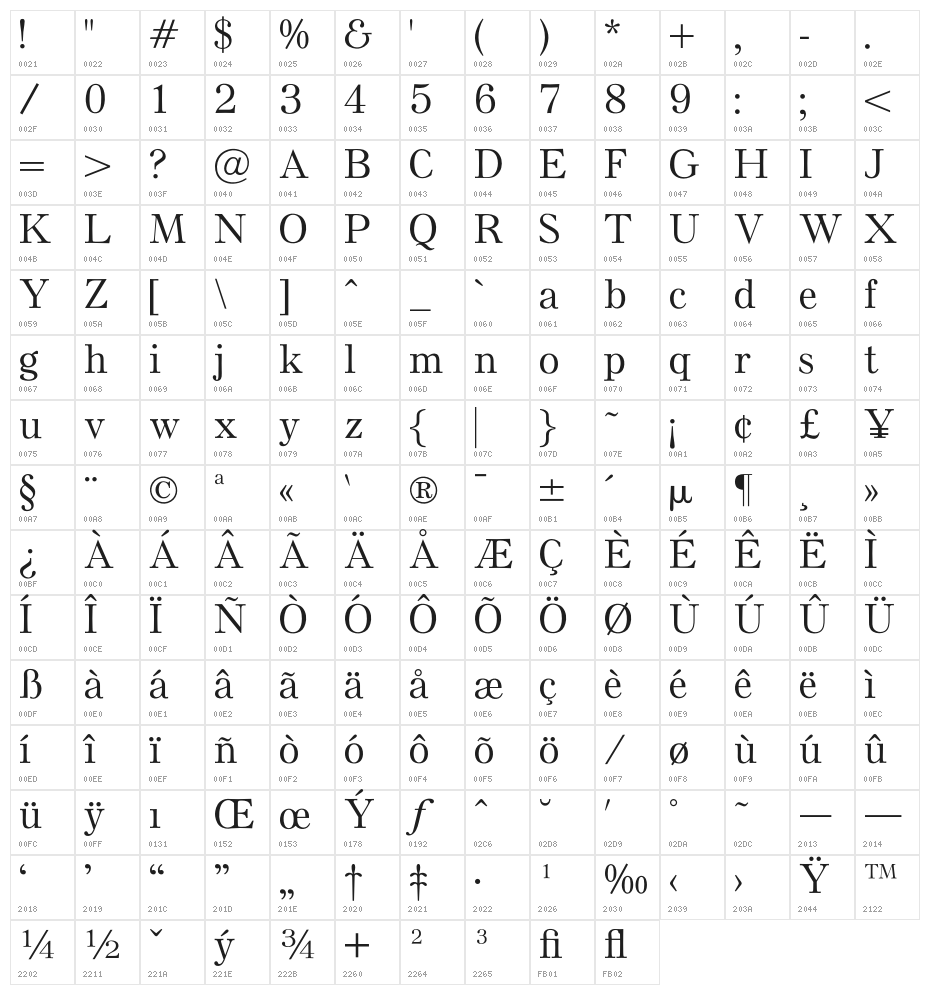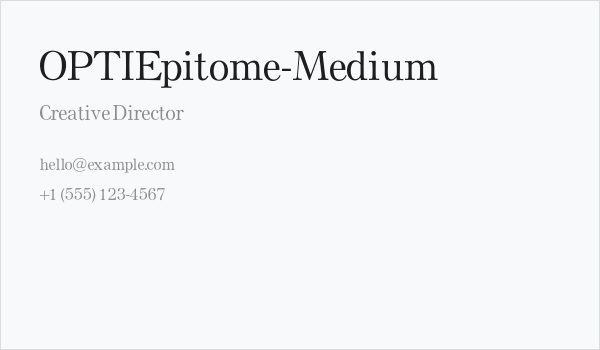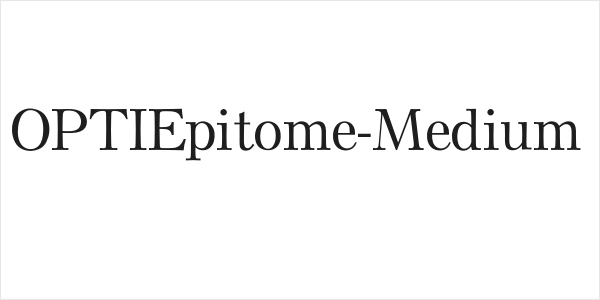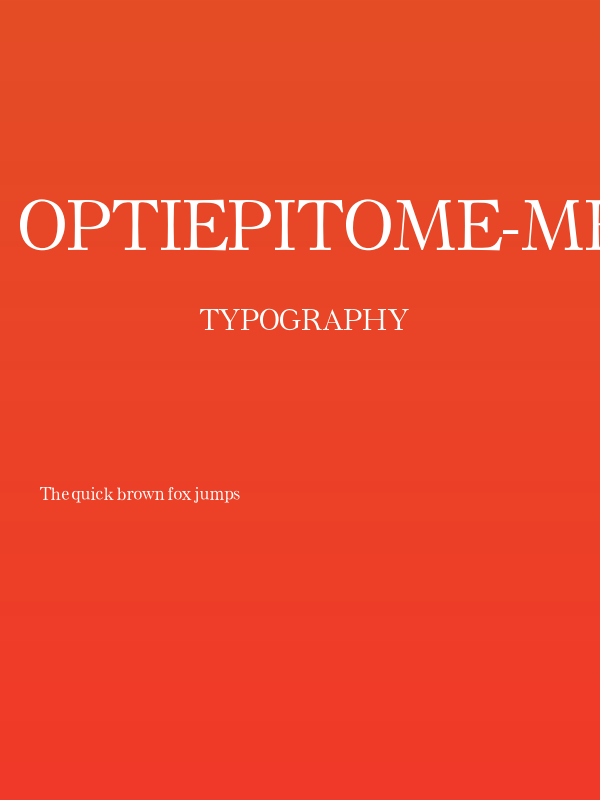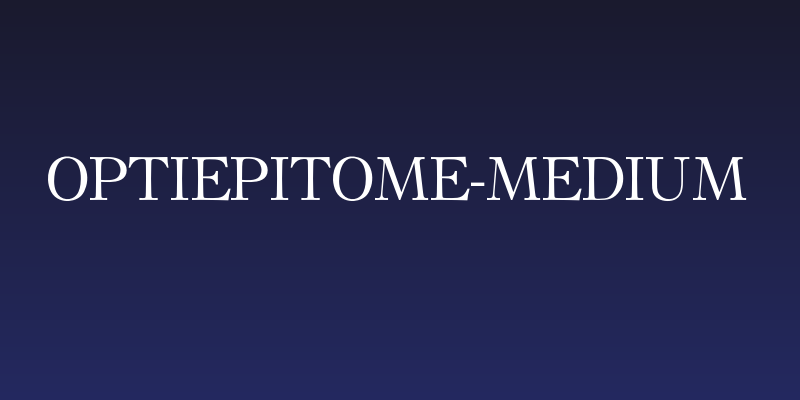
OPTIEpitome-Medium Font
OPTIEpitome-Medium Description
This font features a classic serif style with elegant and refined strokes. The uppercase letters are bold and commanding, while the lowercase letters maintain a balanced and readable form. Numbers are clear and distinct, making them suitable for both display and text purposes. The special characters are well-integrated, maintaining the overall aesthetic of the font. The design is versatile, offering a timeless appeal that can enhance both modern and traditional projects.
| Proposed Projects | Ideal for editorial design, book covers, branding, and formal invitations. |